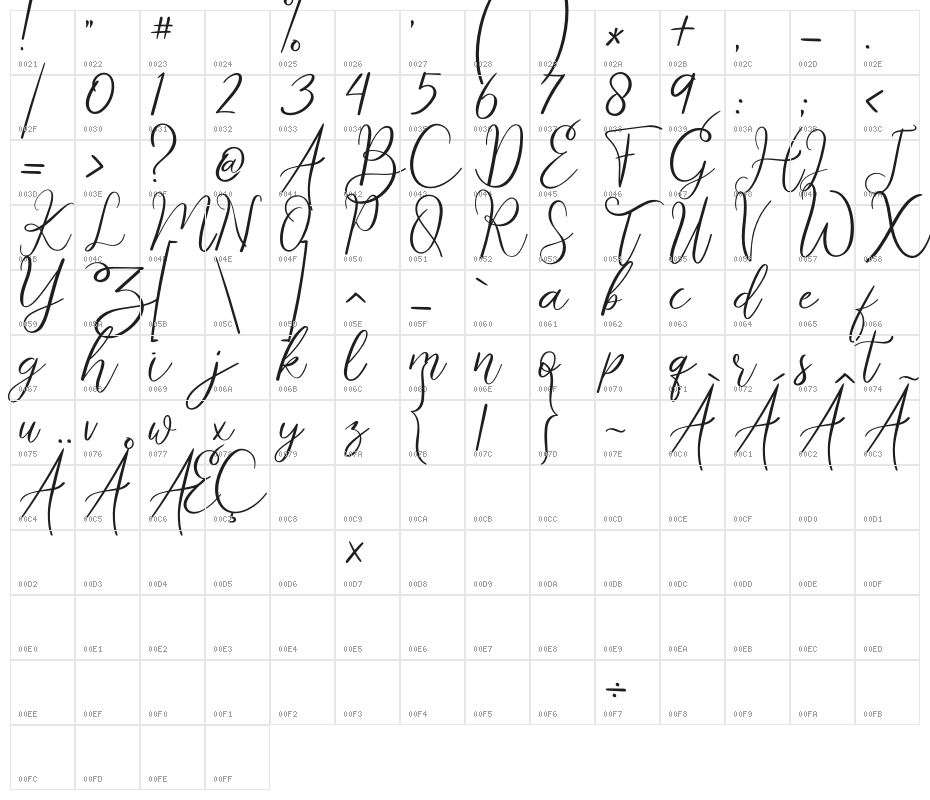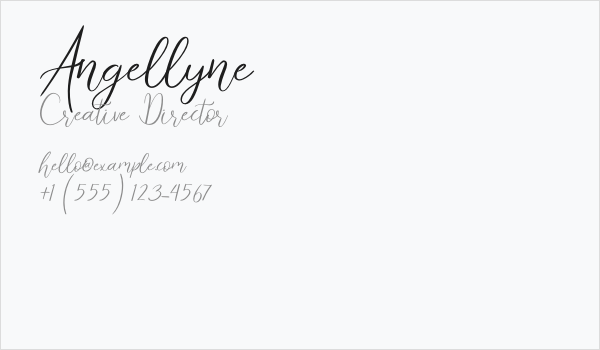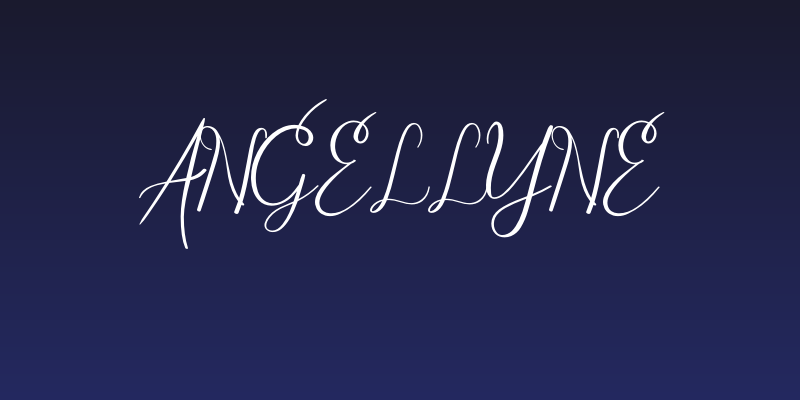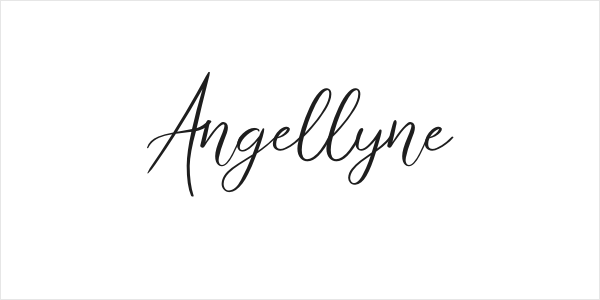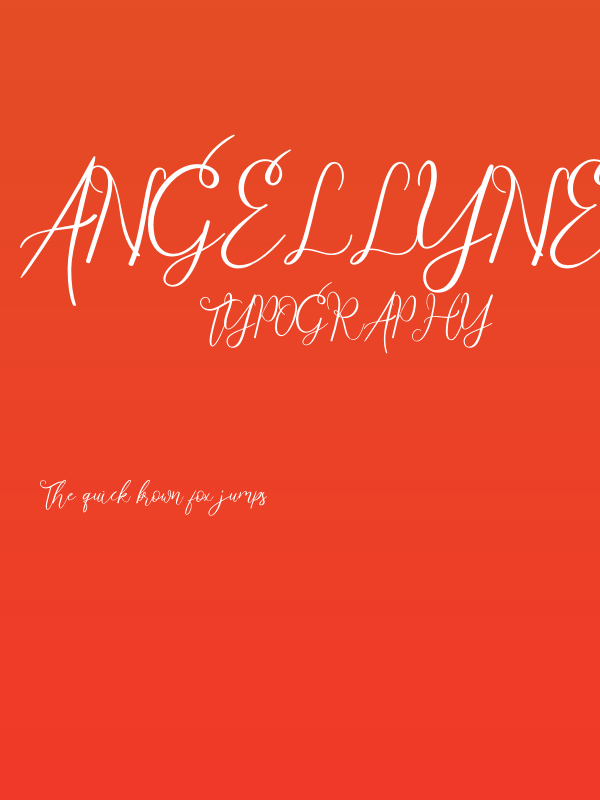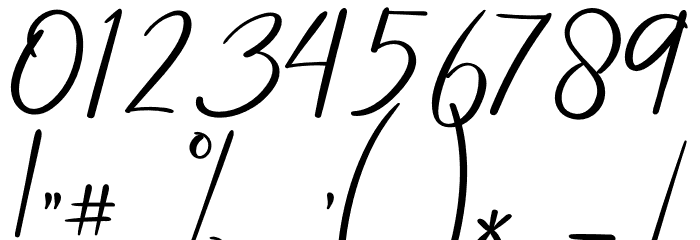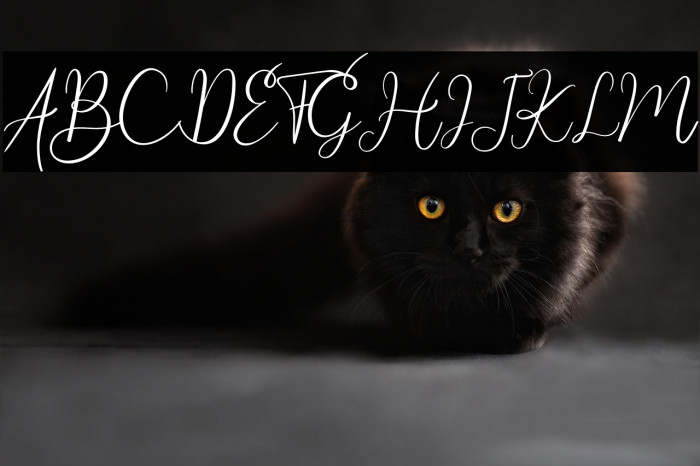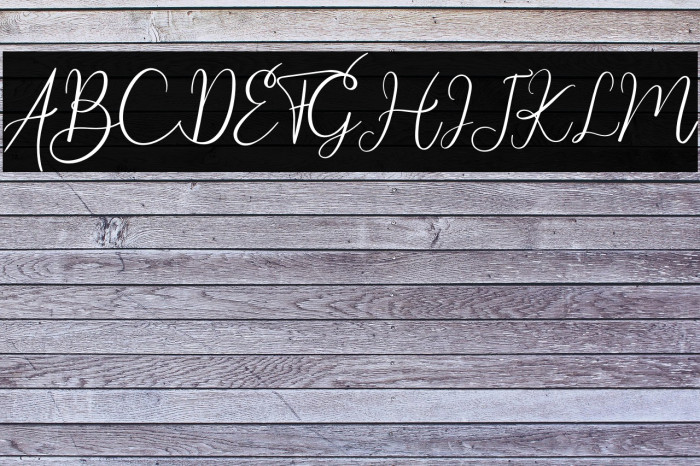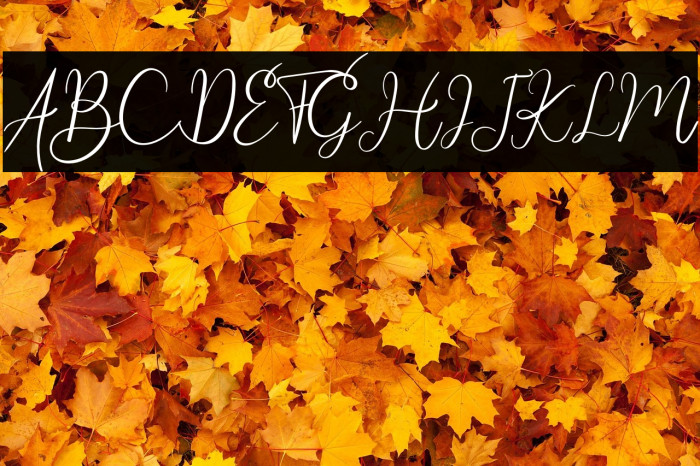
Angellyne Font
Angellyne Description
This font features an elegant and flowing script style, characterized by its smooth, cursive lines and graceful curves. The uppercase letters exhibit a sophisticated flair with elongated strokes and subtle flourishes, while the lowercase letters maintain a consistent fluidity that enhances readability. The numerals are designed with a similar aesthetic, offering a harmonious blend of style and clarity. Special characters are thoughtfully integrated, maintaining the overall elegance of the font. This typeface exudes a sense of refinement and charm, making it ideal for projects that require a touch of sophistication.
| Proposed Projects | Ideal for wedding invitations, elegant branding, greeting cards, and upscale packaging. |